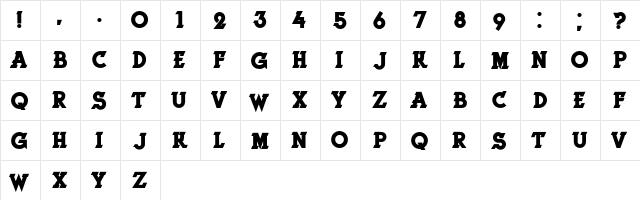
Herne Bold
Design Context for Herne Typeface
Herne offers clean, dependable letterforms without strong stylistic allegiance, making it a practical choice for designers who need flexibility. The heavy weight commands attention and anchors typographic hierarchies.